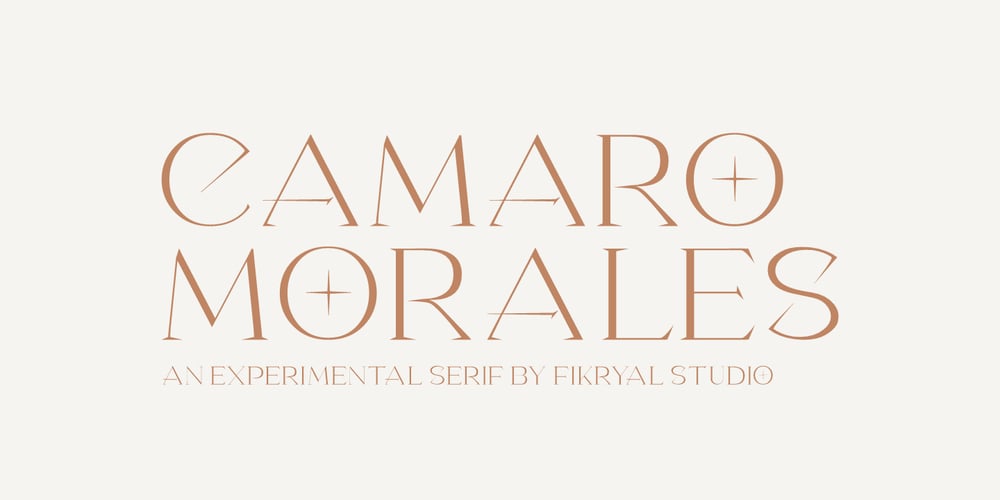
Camaro Morales Font Family was designed by Muhammad Fikry and published by Fikryal. Camaro Morales contains 1 styles and family package options. Camaro – An Experimental Serif is an online innovation in the world of typography that brings the courage of experimentation and uniqueness. Carefully shaped to create a strong and challenging impression, this font features a highly experimental all-caps serif style. Each letter is designed with meticulous detail, creating an alluring and inviting atmosphere.With a combination of unique and contemporary characters, Camaro brings a fresh, avant-garde feel to typographic design. Boldness in the exploration of form and proportion provides unexpected characteristics, making it suitable for a variety of creative projects that require a modern and innovative touch.With its ability to stand out among other fonts, Camaro – An Experimental Serif is the perfect choice for designers who want to explore the conventional boundaries of typography and create bold, striking designs.If you have any questions please don’t hesitate to contact meFollow my Instagram: fkryallThank you